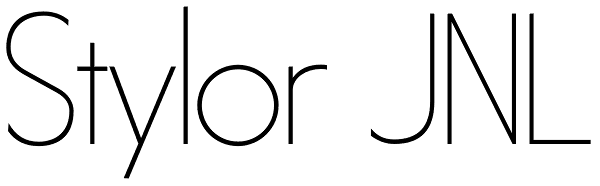
Stylor JNL
Thin strokes, an Art Deco feel and useful in both text and display work... that's Stylor JNL by Jeff Levine. Inspired by various designs of the past, this is Jeff's personal take on a classy form of Deco lettering. Stylor Demi JNL is a bolder weight...
Stylor JNL
Stylor Demi JNL